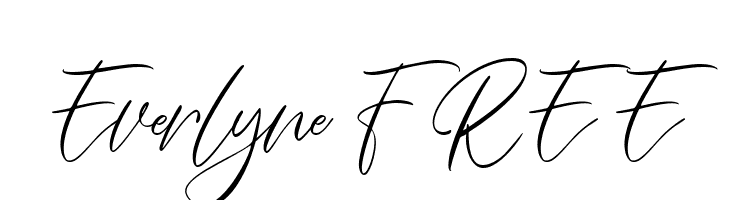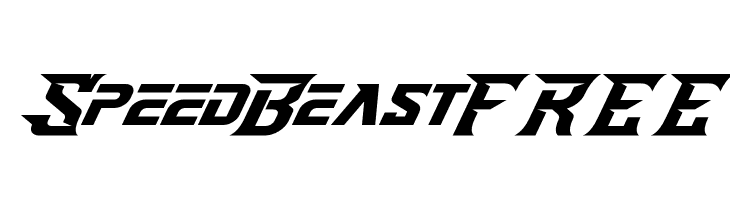
A bold, angular font with a futuristic, geometric design.
A bold, brush-style font with dynamic and expressive strokes.
A bold, expressive script font with high contrast and decorative flourishes.
A bold, cursive font with interconnected, flowing characters.
A bold, dynamic script font with fluid, cursive letterforms.
A bold, hand-painted style font with textured, brush-like strokes.
A bold, brushstroke-style font with a textured, hand-painted look.
A dynamic brush-style font with expressive, fluid strokes and artistic flair.
A geometric, angular font with a futuristic and modern design.
A bold, brush-stroke style font with an expressive and artistic flair.
A bold, brush-style font with a hand-painted, artistic appearance.
A bold, hand-drawn font with a playful and artistic style.
A dynamic brush-style font with bold, expressive strokes and a hand-painted look.
A dynamic brush-style font with fluid, expressive strokes and a modern calligraphic flair.
A bold, brush-style font with a hand-painted, dynamic appearance.